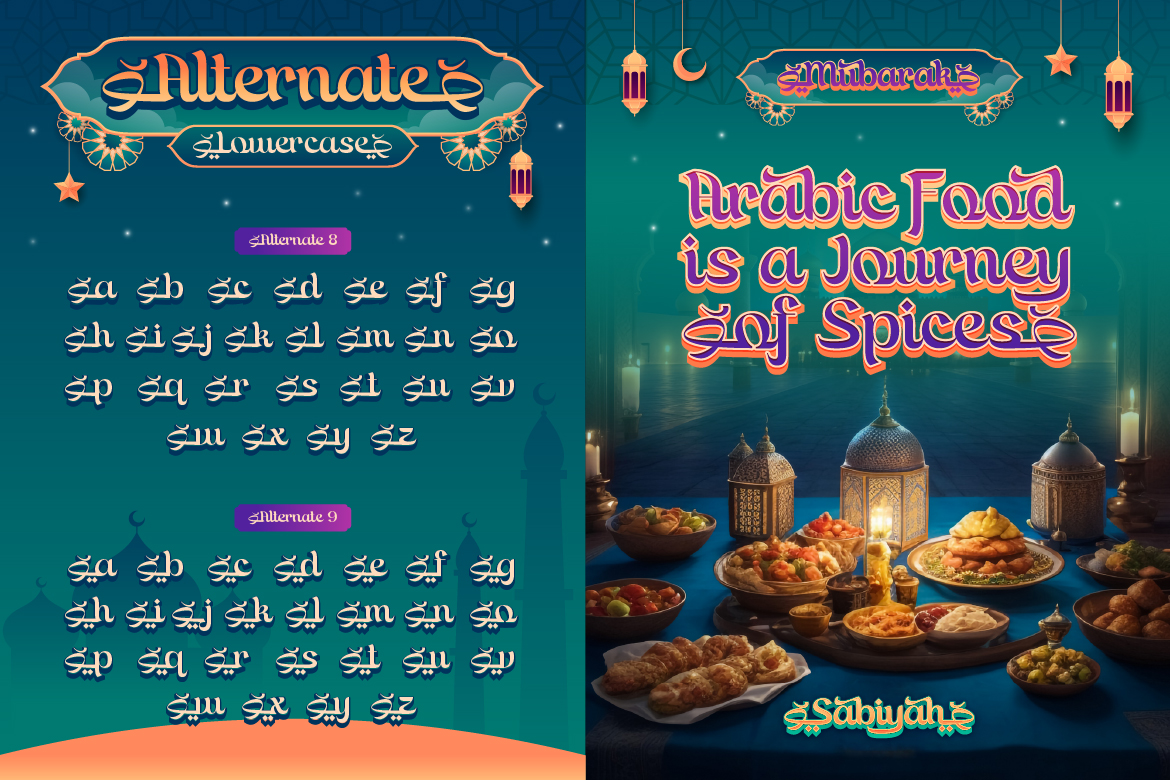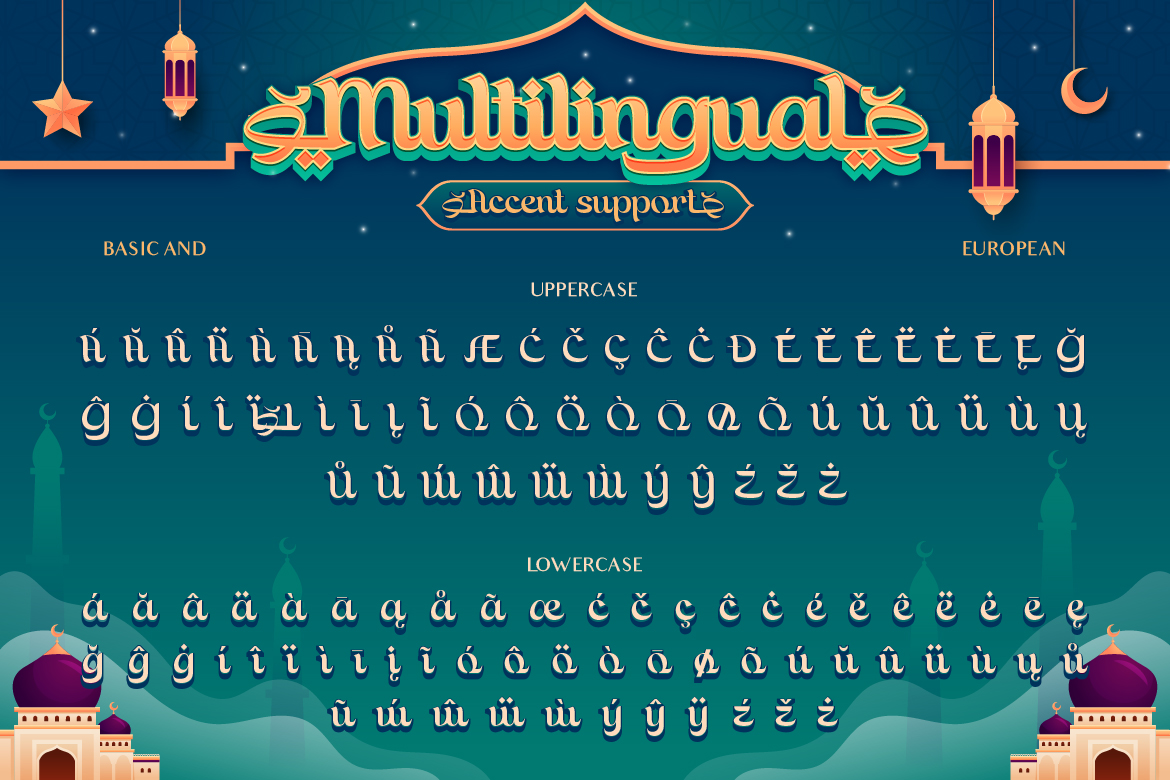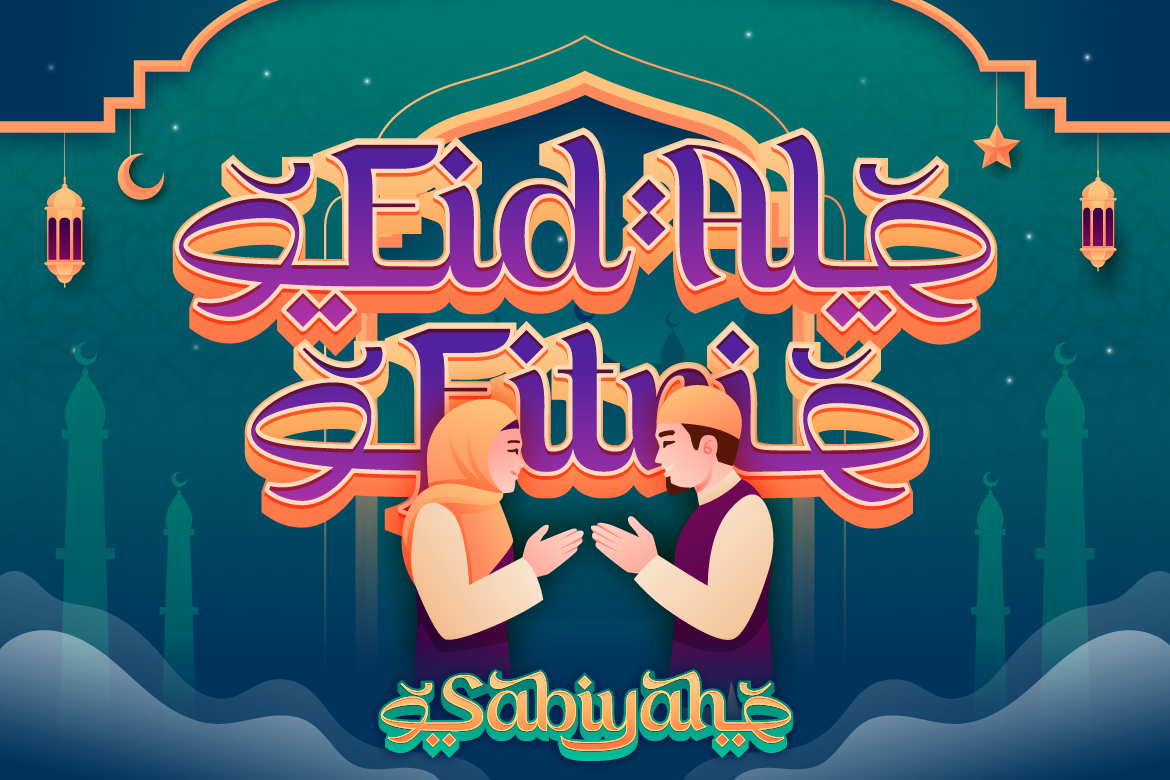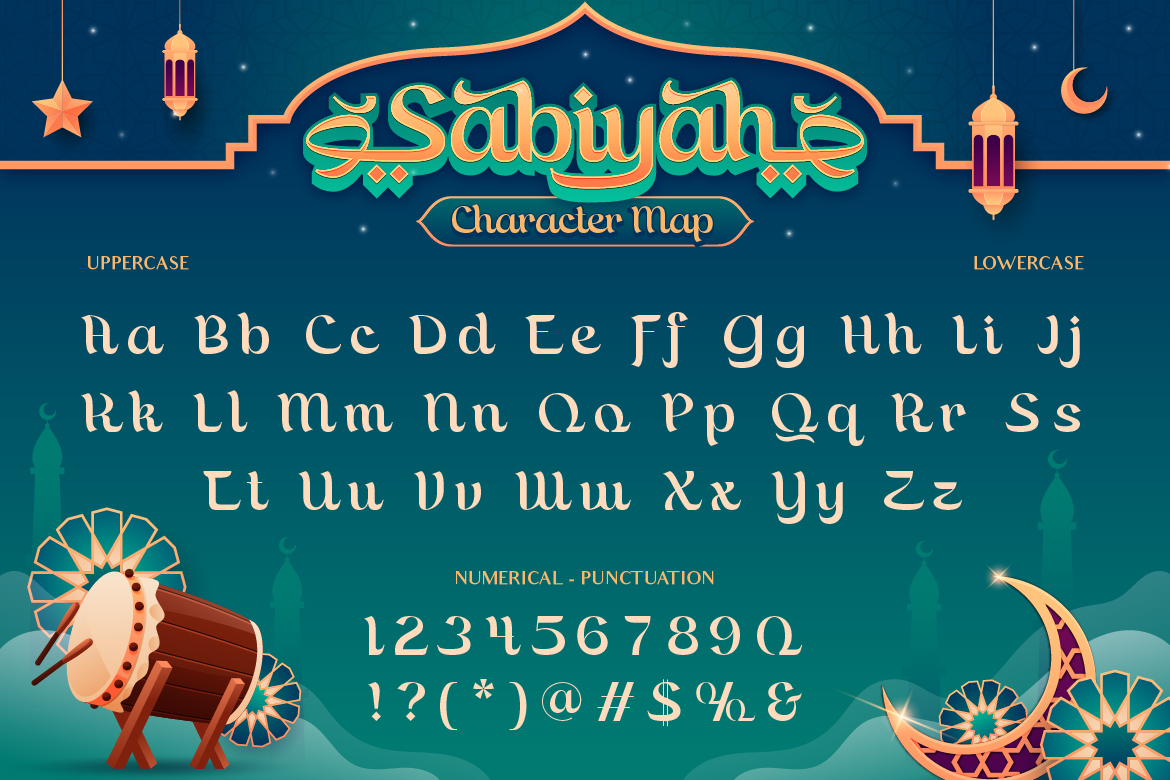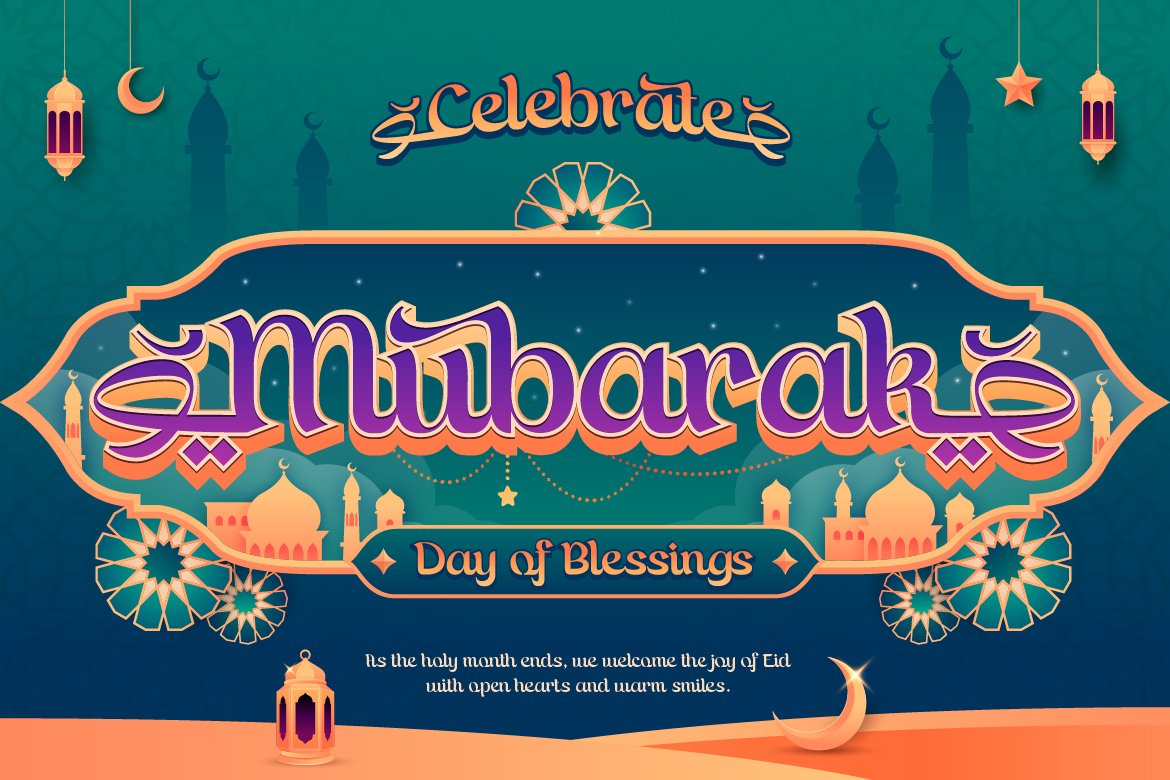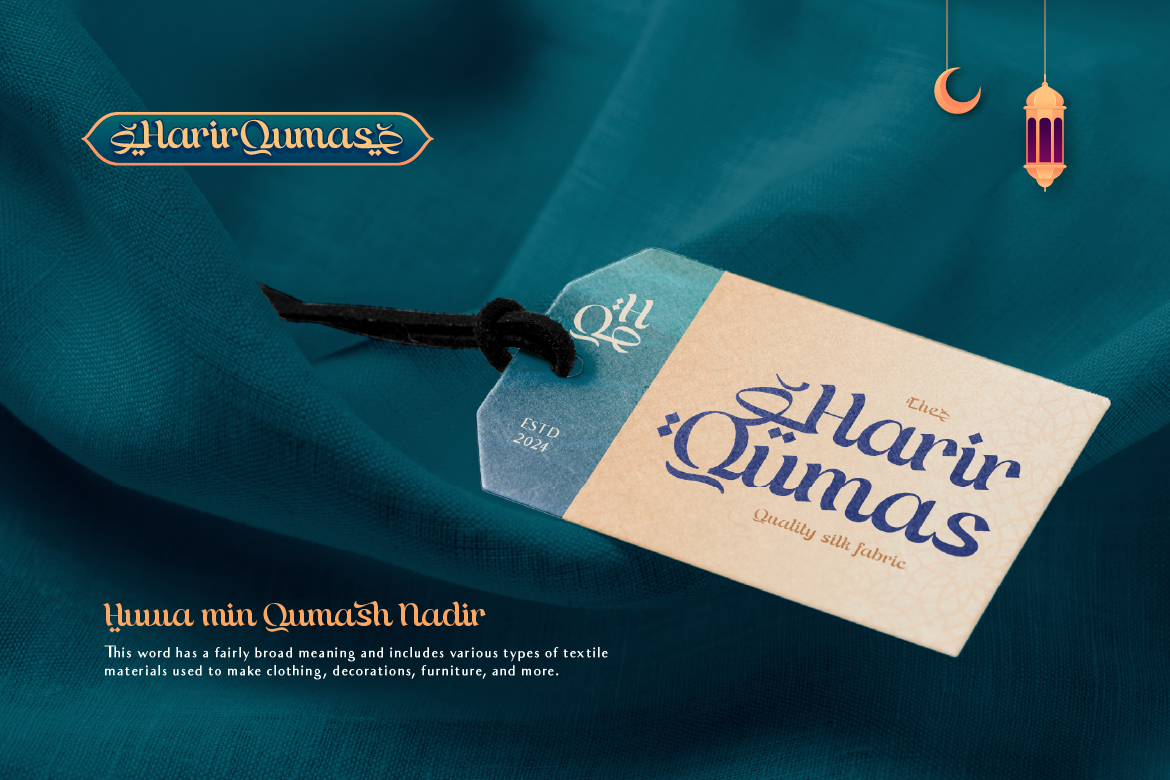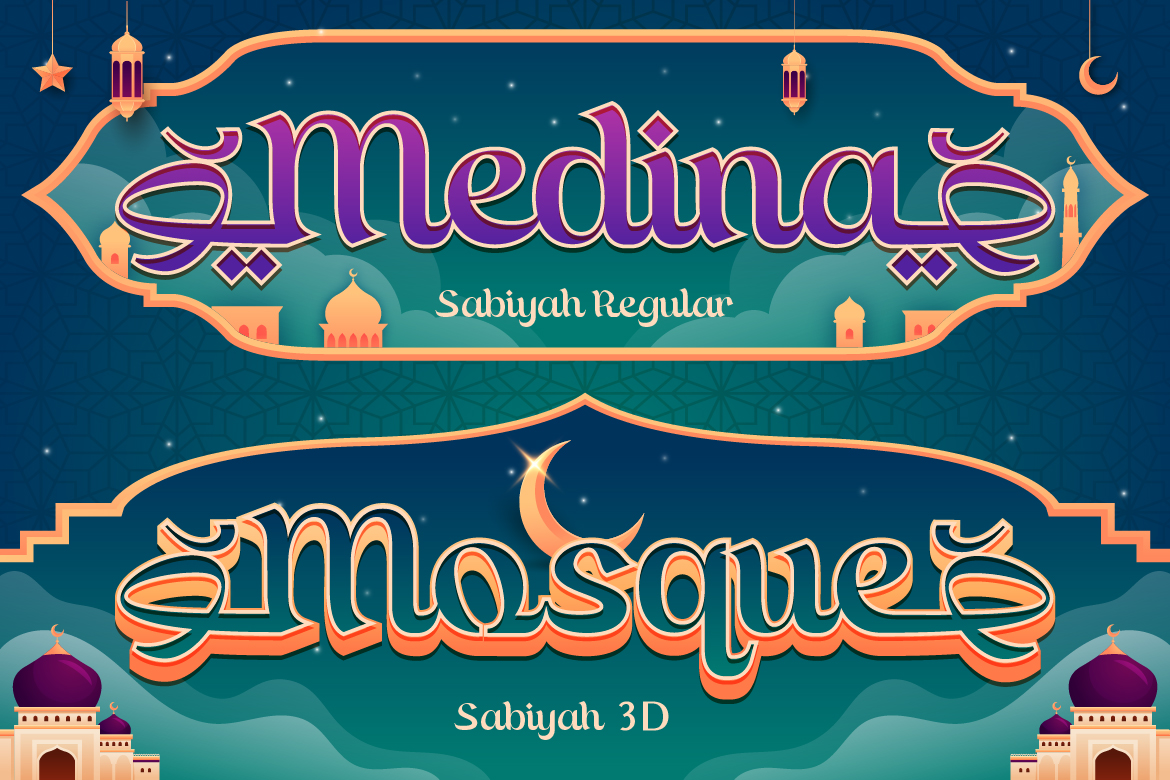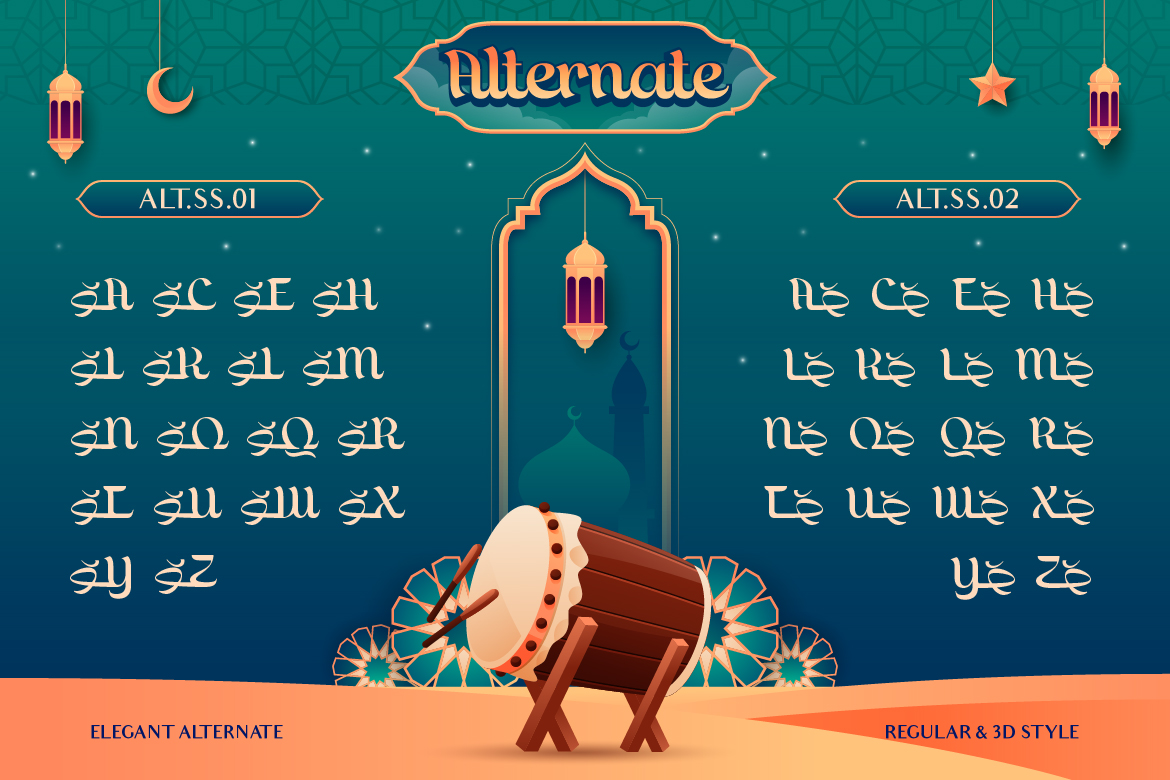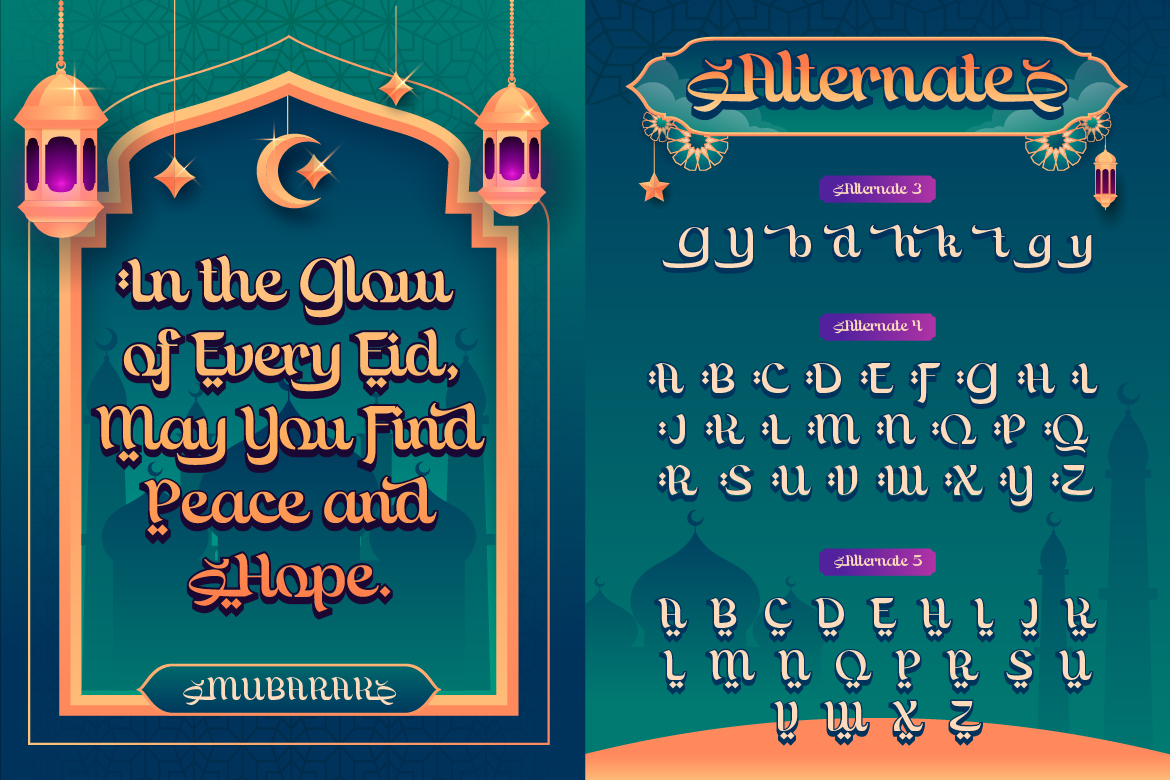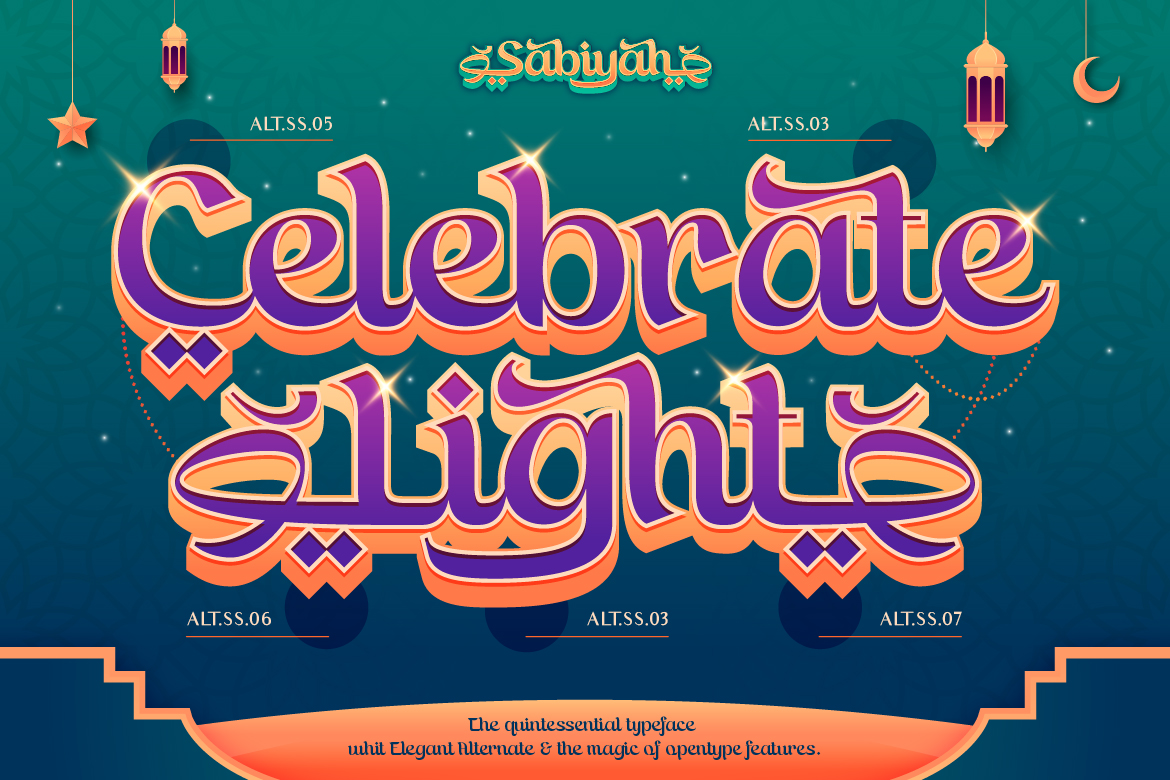
Sabiyah is a modern Arabic-inspired display font that brings festive vibes to your designs. With its bold strokes and smooth curves, this font feels perfect for Ramadan, Eid celebrations, Islamic events, or even branding that wants a touch of cultural elegance.
It comes in two styles—Regular and 3D Style—so you can mix and match depending on the mood. Whether you’re designing posters, invitations, social media graphics, or packaging, Sabiyah adds that warm and joyful atmosphere that instantly connects with people.
If you want your design to feel meaningful, festive, and full of character, Sabiyah is the font that makes every word shine.